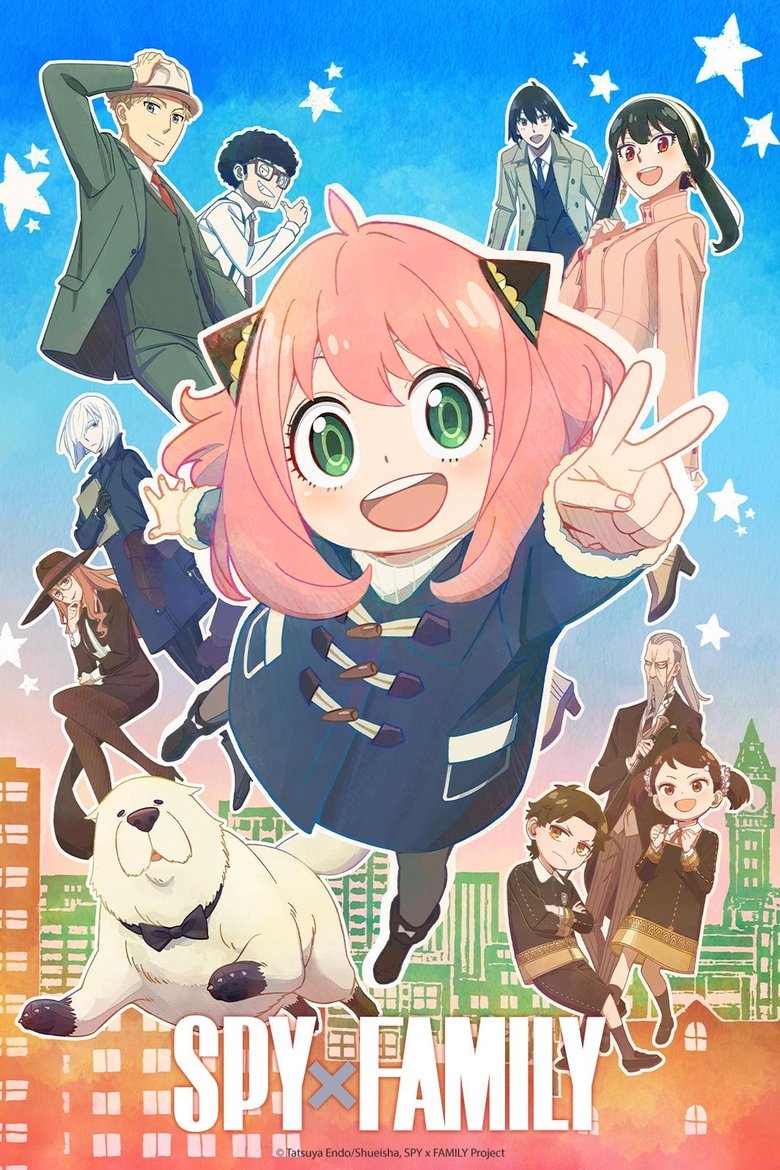
About the Spy x Family font
Spy x Family's logo is rounded and playful. Titan One recreates that warm, mission-family charm.
What font is used in the Spy x Family logo?+
The original Spy x Family logo uses custom lettering. This generator recreates the look with Titan One — a free, open-license font you can style and download.